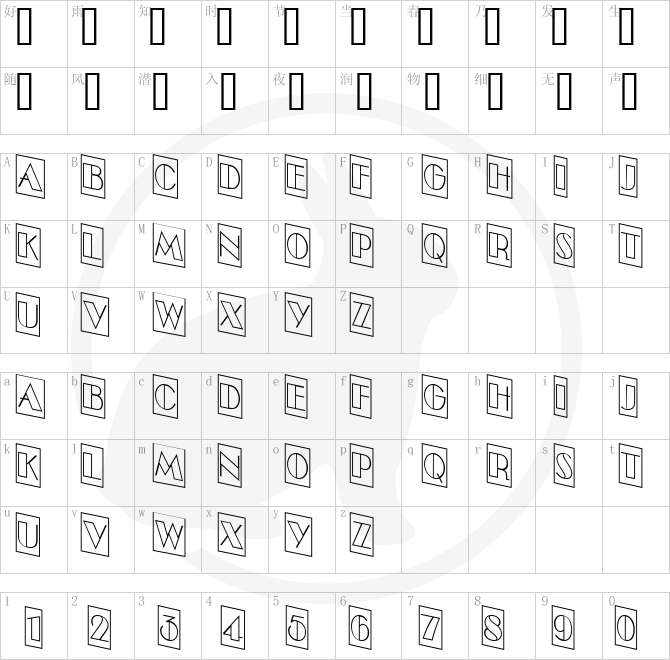
a_BentTitulCmDnOtlNr.ttf is a very beautiful artistic font, a_BentTitulCmDnOtlNr.ttf is widely used in the design and printing of various books and pictures,a_BentTitulCmDnOtlNr.ttf has a strong visual impact,a_BentTitulCmDnOtlNr.ttf is a commonly used font in newspapers, magazines and books, and is used in posters, e-commerce Poster design, store design, logo design, font design and other fields.a_BentTitulCmDnOtlNr.